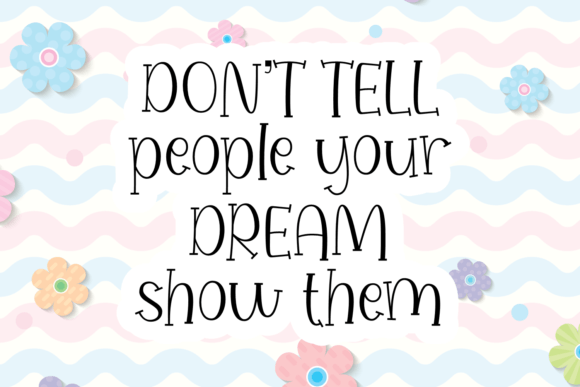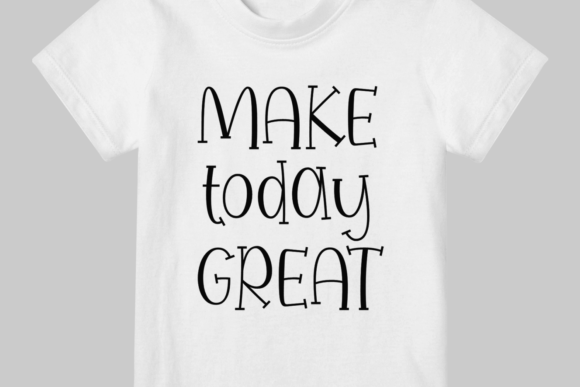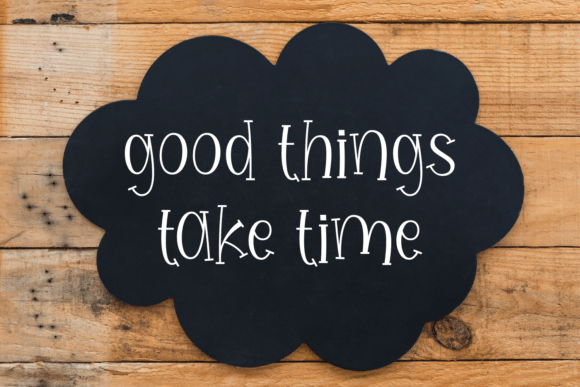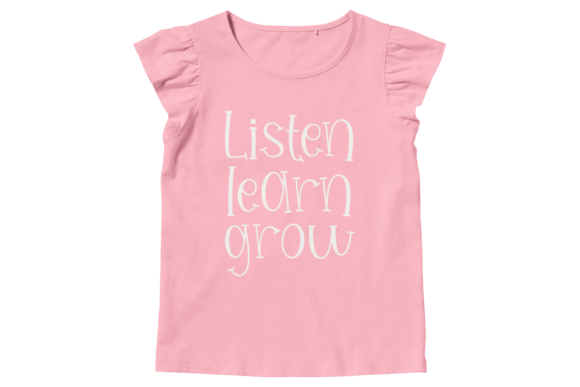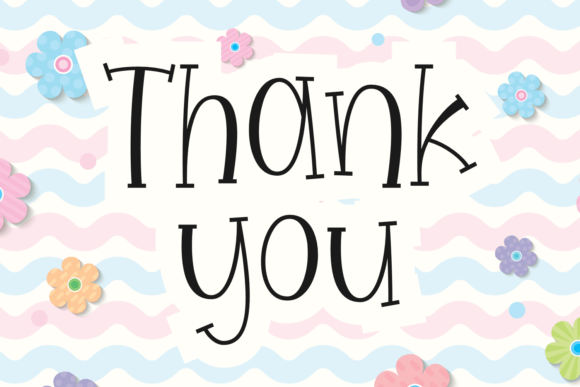
The Power of Whimsy: Unlocking the Magic of Gentle Heart Font
Do you remember that moment when you stumbled upon a font that made you smile? For designers, this moment is a game-changer. It’s the spark that ignites creativity and sets the tone for a project. For me, that moment came when I discovered the Gentle Heart Font – a delightful handwritten serif font that radiates charm and playfulness.
Gentle Heart Font is more than just a font; it’s a tool that brings warmth and personality to your designs. Its unique blend of serifs and hand-drawn strokes adds a delightful touch to invitations, greeting cards, and any other project that needs a friendly vibe. With Gentle Heart Font, you can infuse your text with a dash of whimsy and make it stand out.
Gentle Heart Font Key Features
- Font Family: Gentle Heart Font
- Character Set: Latin, Cyrillic, Greek, and Extended Latin characters
- Unique Characteristics: Hand-drawn design, elegant and delicate feel, perfect for romantic and elegant designs, and comes with a range of ligatures and alternates
Gentle Heart Font Review
I recently had the chance to work with the Gentle Heart Font, and I must say it’s a lovely addition to any design project. ✨ Here are some things that really stand out to me:
- Expressive and emotive: The Gentle Heart Font is perfect for projects that require a touch of warmth and personality.
- Highly legible: The font is clear and easy to read, making it a great choice for body text or headings.
- Customizable: The Gentle Heart Font offers a range of customization options, including font sizes, colors, and styles.
However, as with any font, there are some limitations to consider: ⚠️
- Limited style options: While the font offers a range of customization options, it’s ultimately a relatively simple design.
- Not ideal for bold statements: The Gentle Heart Font is best suited for subtle, emotive designs – it may not be the best choice for bold, attention-grabbing headlines.
Overall, I think the Gentle Heart Font is a great addition to any designer’s toolkit. It’s versatile, easy to use, and adds a touch of warmth to any project. Whether you’re working on a personal or professional project, the Gentle Heart Font is definitely worth considering.
Use Gentle Heart Font for projects that require a soft, elegant, and feminine touch, such as wedding invitations, baby showers, or romantic greeting cards. To get the most out of it, experiment with different font sizes, colors, and combinations with other fonts. You can also use it to add a touch of whimsy and playfulness to your designs.
Alternatives to Gentle Heart Font
The Great Vibes Font is a beautiful, elegant script font that’s perfect for creating a warm and inviting atmosphere. It’s ideal for use in wedding invitations, greeting cards, and other special occasions where a touch of romance is needed.
Compared to Gentle Heart Font, Great Vibes Font has a more modern and sleek feel, making it a great choice for designers who want to add a bit of sophistication to their designs.
The Carolyna Pro Font is a luxurious, high-end script font that’s perfect for creating a sense of luxury and elegance. It’s ideal for use in high-end branding, advertising, and packaging where a touch of sophistication is needed.
Compared to Gentle Heart Font, Carolyna Pro Font has a more refined and polished feel, making it a great choice for designers who want to create a sense of exclusivity and high-end quality.
The Alex Brush Font is a beautiful, handwritten script font that’s perfect for creating a personal and intimate atmosphere. It’s ideal for use in blog posts, social media, and other digital content where a touch of warmth and personality is needed.
Compared to Gentle Heart Font, Alex Brush Font has a more casual and relaxed feel, making it a great choice for designers who want to add a bit of whimsy and personality to their designs.
Yes, you can customize the Gentle Heart Font using various design applications that support font editing, such as Adobe Illustrator or FontLab. However, please note that any custom modifications may void your license agreement.
What is the recommended font size range for the Gentle Heart Font?
The Gentle Heart Font is designed to be highly legible across a wide range of font sizes. We recommend using font sizes between 12px and 48px for optimal readability. However, feel free to experiment with different font sizes to achieve the desired visual effect for your project.